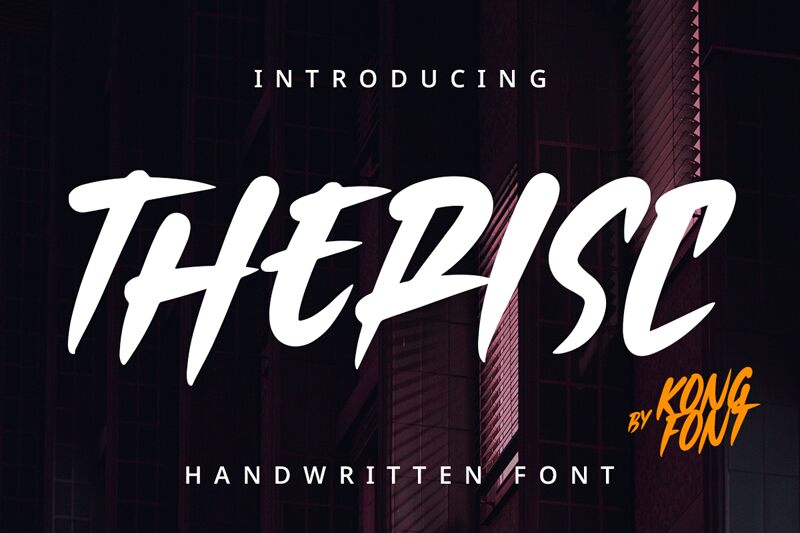
Therisc, a captivating handwritten font created by Kong Font, exudes an alluring sense of effortless elegance. Its condensed width lends an air of sophistication, while the organic, fluid strokes evoke a captivating handcrafted aesthetic. The font's striking visual appeal effortlessly blends modern simplicity with a touch of vintage charm, making it a versatile choice for a wide range of design applications.
This font's versatility shines through its ability to elevate various design contexts, from editorial layouts and branding initiatives to packaging designs and social media content. Therisc's unique character and expressive qualities make it an excellent selection for projects seeking to convey a sense of artisanal authenticity, personal touch, or youthful vibrancy.